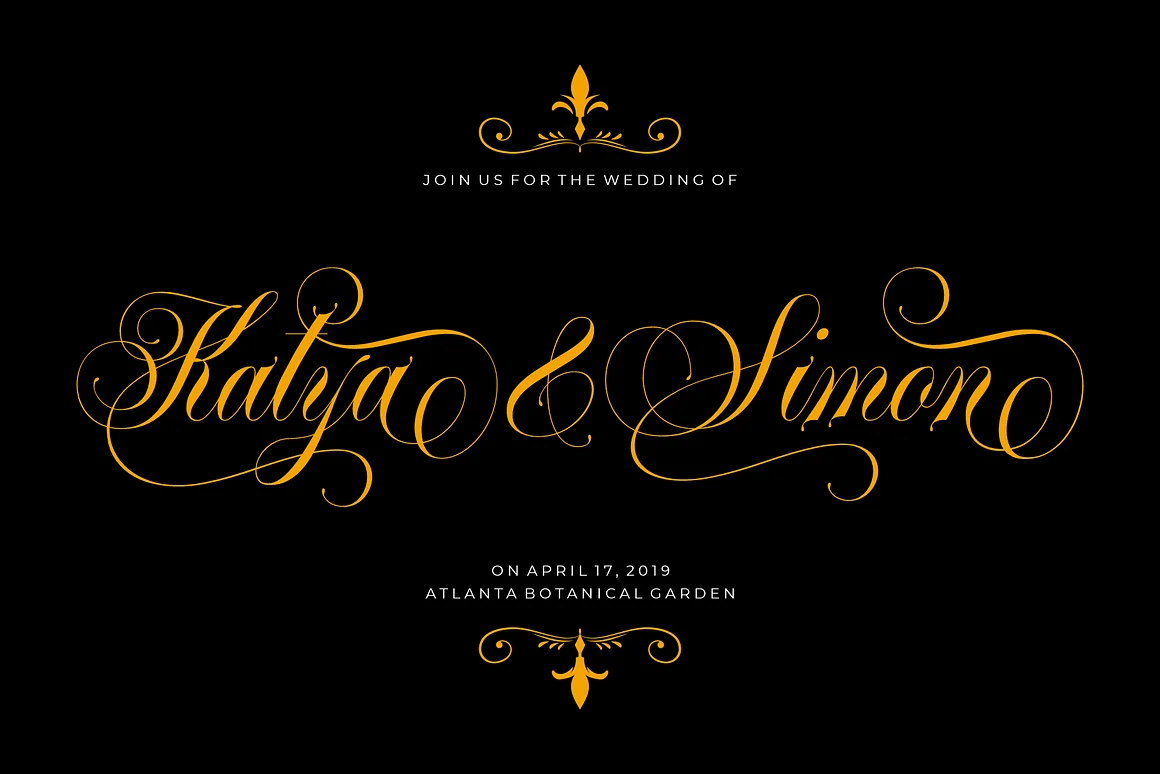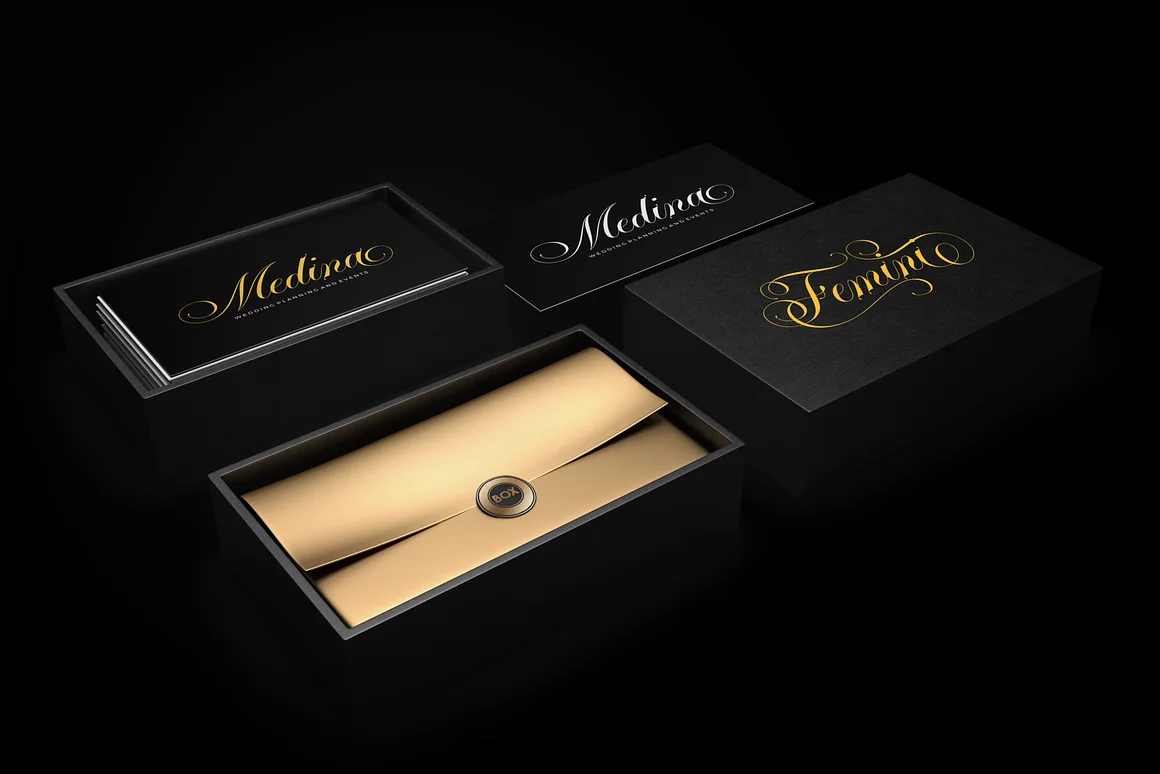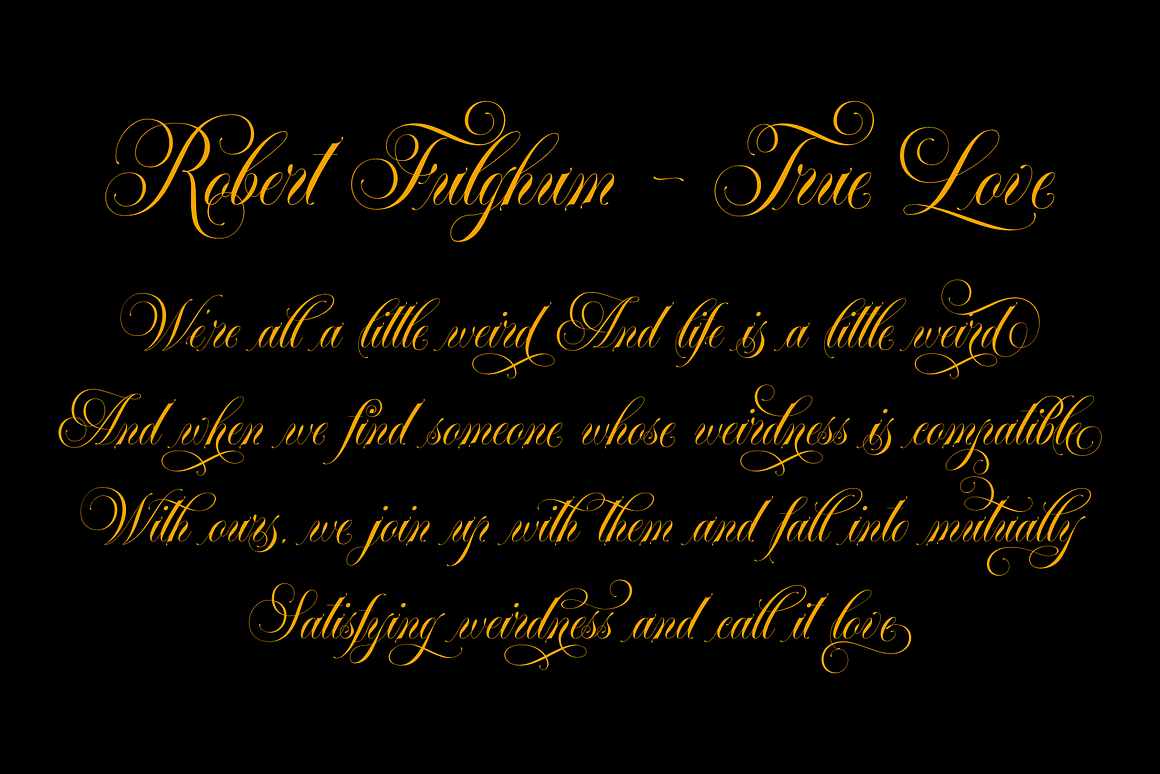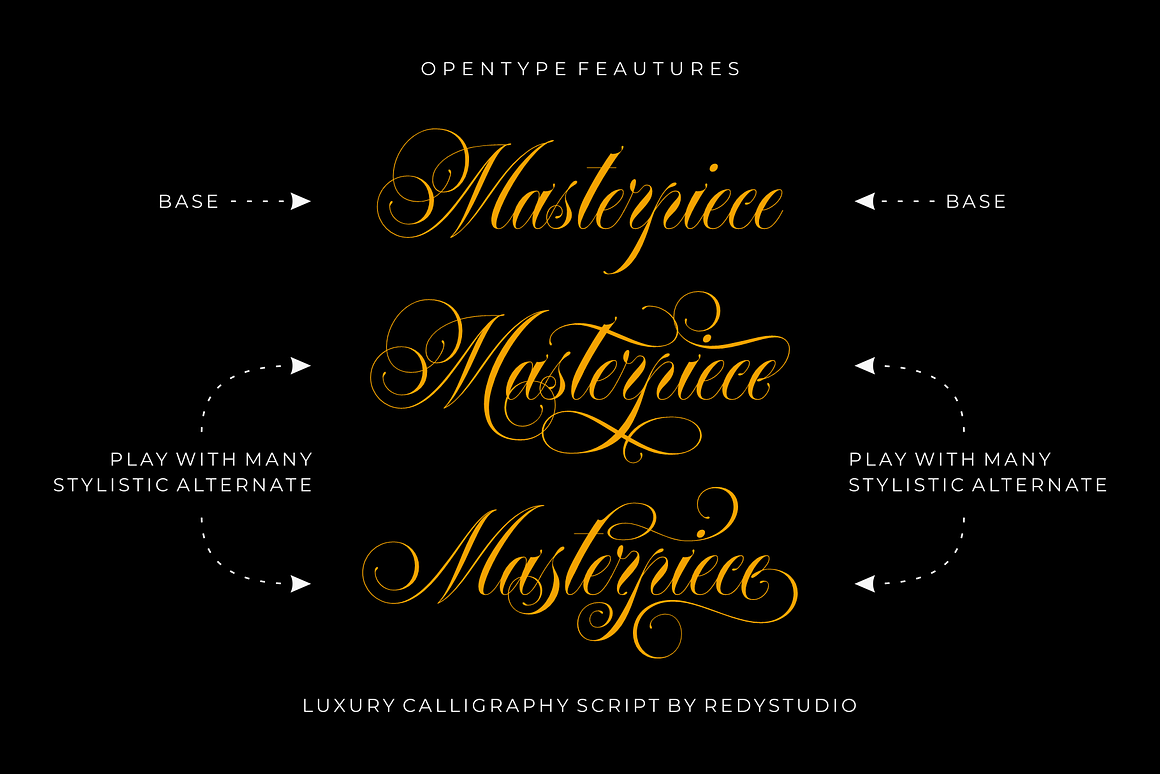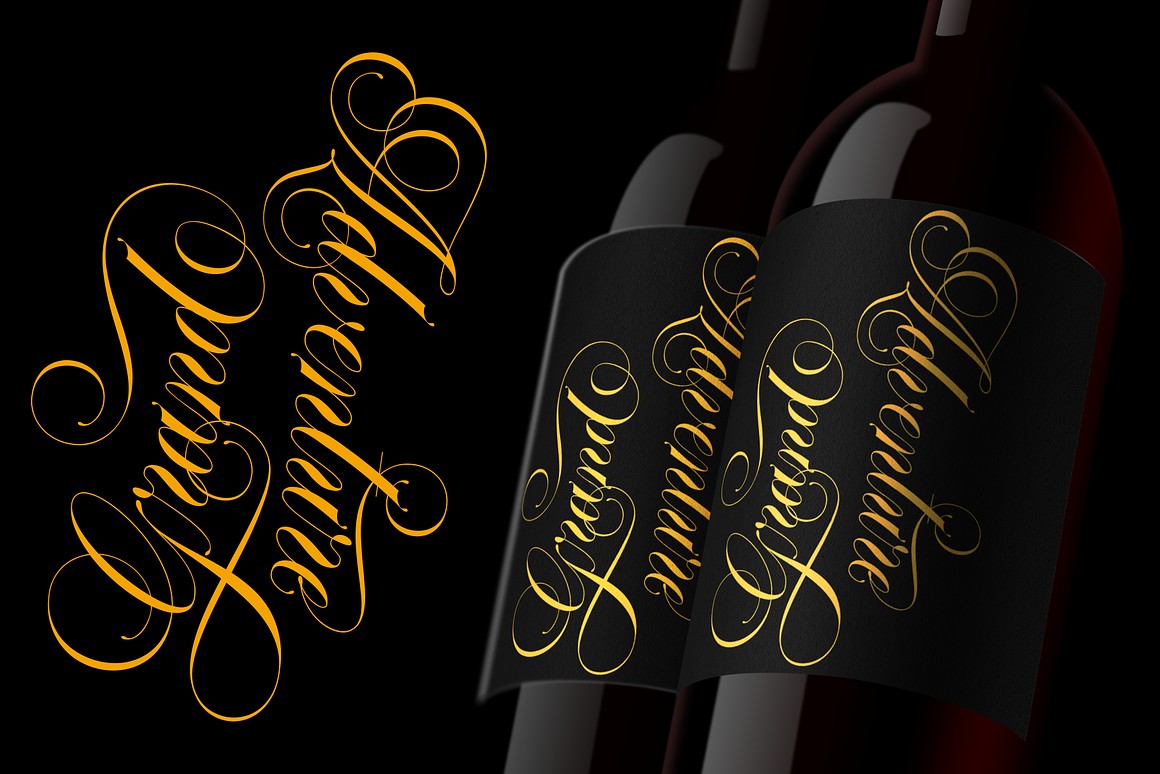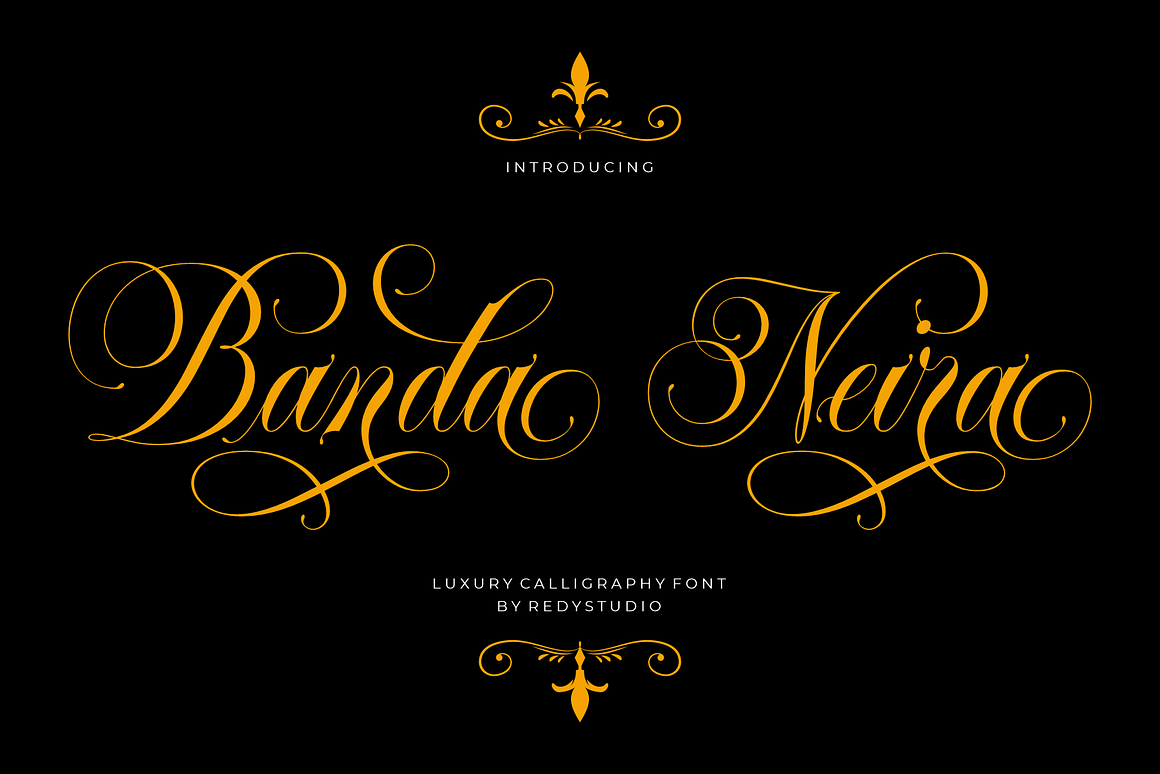
Banda Neira Script Font
Banda Neira Script Font is perfect for tropical resort branding, exotic travel marketing, island destination logos, spice trade heritage projects, maritime adventure campaigns, tropical product packaging, oceanic lifestyle brands, cultural tourism materials, island paradise invitations, and exotic culinary experiences.
What makes Banda Neira Script Font so exciting is its exotic elegance that captures the mystique and rich cultural heritage of the legendary Spice Islands while maintaining contemporary sophistication and professional appeal. This enchanting script typeface embodies maritime adventure and tropical sophistication, creating typography that transports audiences to exotic paradises and celebrates the romance of distant shores.
The Banda Neira Script Font family includes regular weight with extensive stylistic alternates, tropical flourishes, maritime ligatures, and exotic design elements that provide designers with comprehensive tools for creating adventurous and memorable typography that celebrates the allure of tropical destinations and maritime heritage.
Discover exotic sophistication with Banda Neira Script Font, a beautifully crafted script typeface that brings the enchanting allure and cultural richness of the legendary Spice Islands to contemporary design projects. This exceptional font embodies the perfect fusion of tropical romance and professional quality, making it an ideal choice for brands that celebrate adventure, exotic beauty, and maritime heritage.
The gracefully flowing letterforms of Banda Neira Script Font showcase tropical elegance with maritime character that creates instant connection with audiences seeking exotic adventures and tropical experiences. Each character displays careful attention to maintaining the exotic charm that defines island paradise while ensuring contemporary readability and professional versatility. The font's tropical curves and maritime spacing contribute to its exotic appearance and adventurous appeal.
Travel brands and exotic lifestyle companies consistently choose Banda Neira Script Font for projects requiring tropical authenticity and maritime sophistication. The comprehensive character set includes uppercase and lowercase letters, numerals, extensive punctuation, international accents, and tropical decorative elements that provide complete support for exotic branding applications and adventurous design compositions.
The exotic versatility of Banda Neira Script Font ensures exceptional performance across both traditional print and modern digital platforms. Whether developing tropical resort identities, creating exotic travel marketing, or designing maritime heritage materials, this remarkable typeface delivers consistent enchantment that resonates with audiences seeking adventure, tropical beauty, and exotic cultural experiences.
Transform your most adventurous projects with Banda Neira Script Font. This extraordinary script typeface brings exotic sophistication and tropical elegance to typography, making it the essential choice for designers who create experiences that celebrate the mystique of distant shores and the enduring romance of maritime adventure.